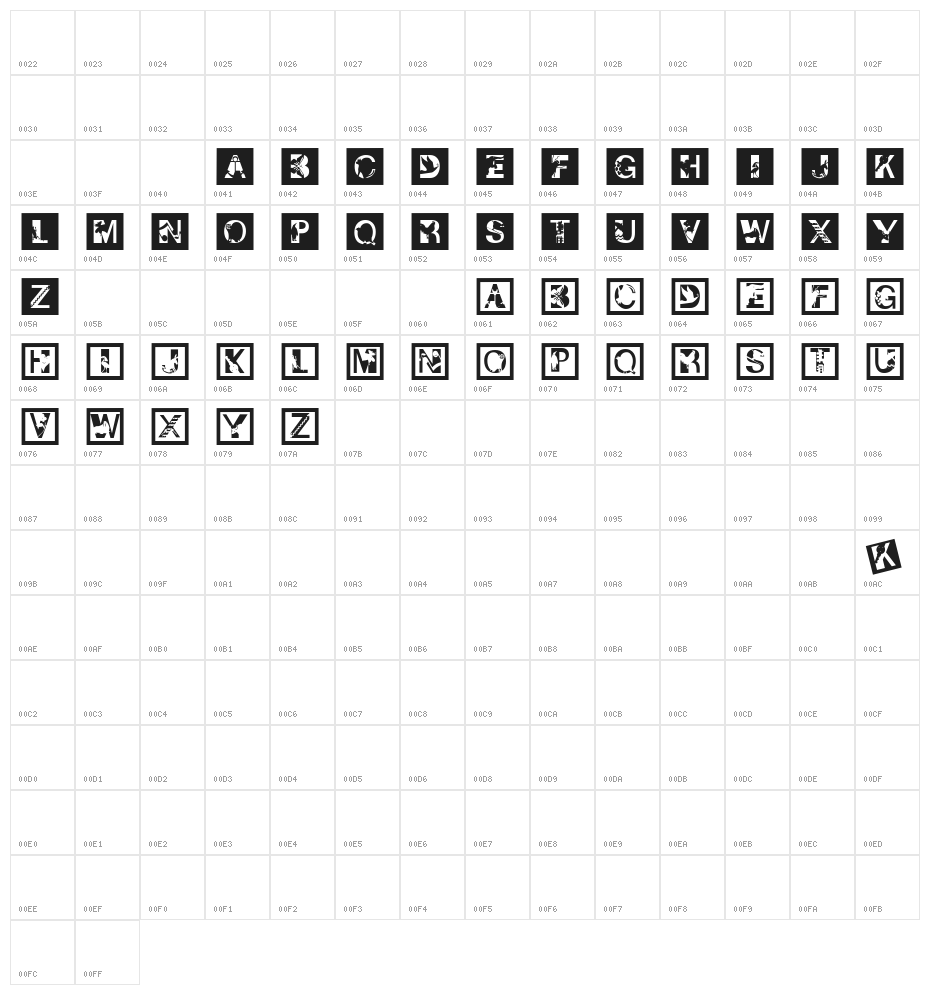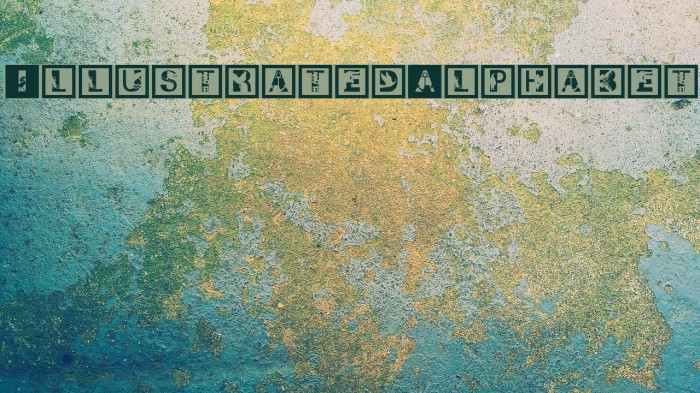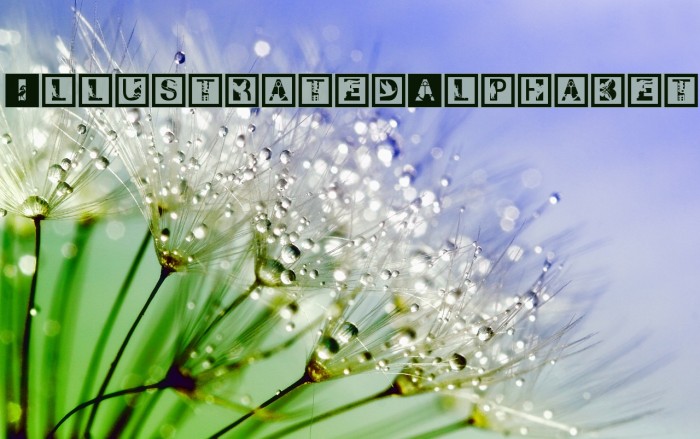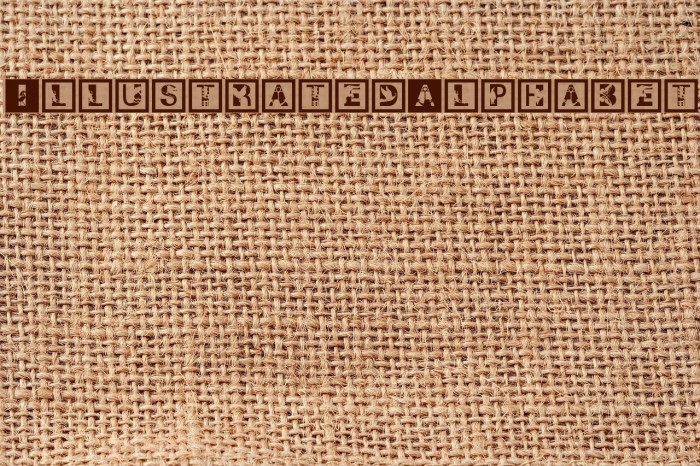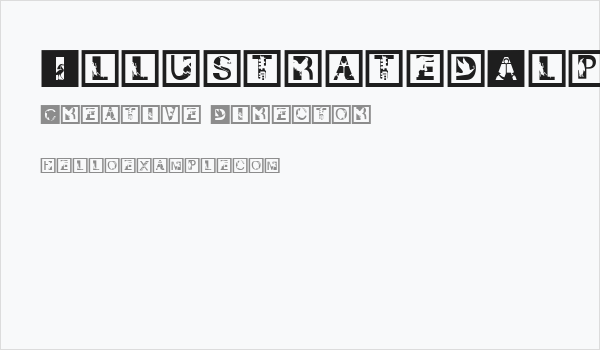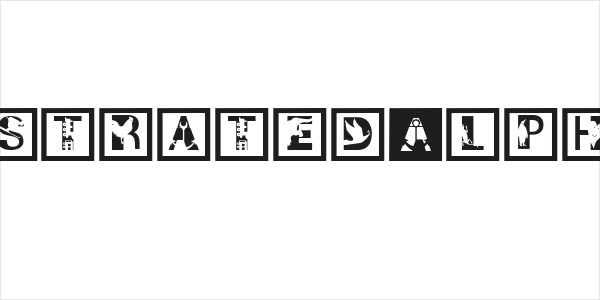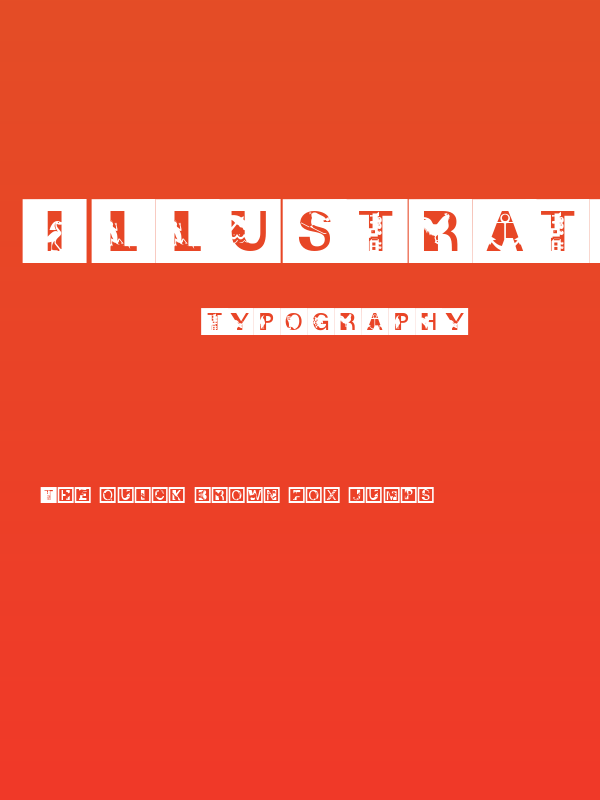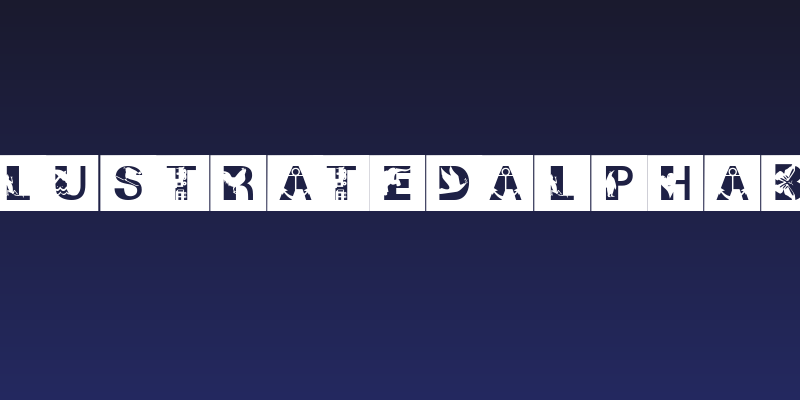
IllustratedAlphabet Font
IllustratedAlphabet Description
This font features a unique and artistic design where each letter is creatively illustrated with intricate patterns and shapes. The characters are bold and enclosed in square frames, giving them a distinct and eye-catching appearance. The uppercase letters are particularly striking, with each character showcasing a different artistic element, such as floral motifs, geometric shapes, or abstract designs. This decorative style makes it ideal for projects that require a strong visual impact. The font's playful and imaginative nature lends itself well to creative and artistic applications.
| Proposed Projects | Ideal for posters, album covers, creative branding, and artistic projects. |